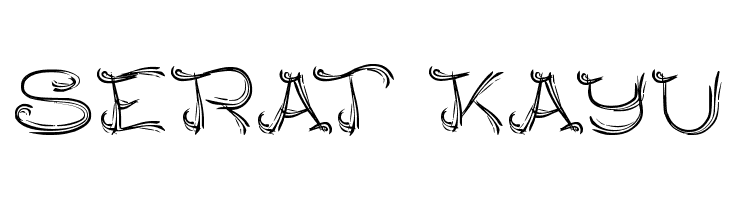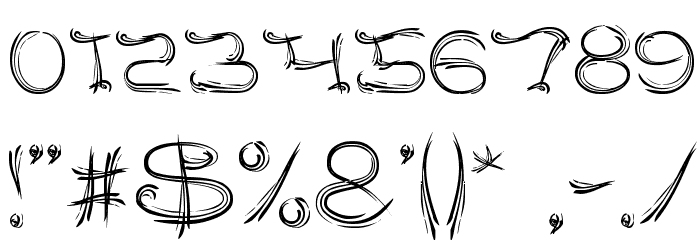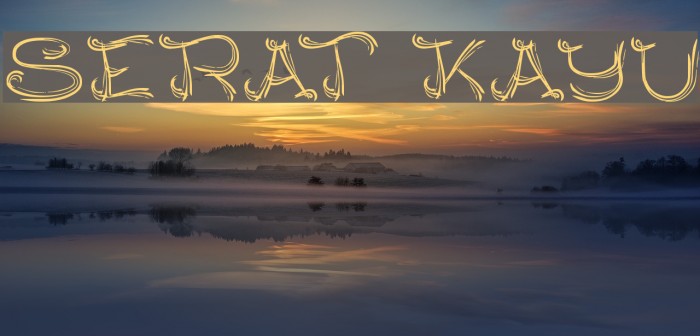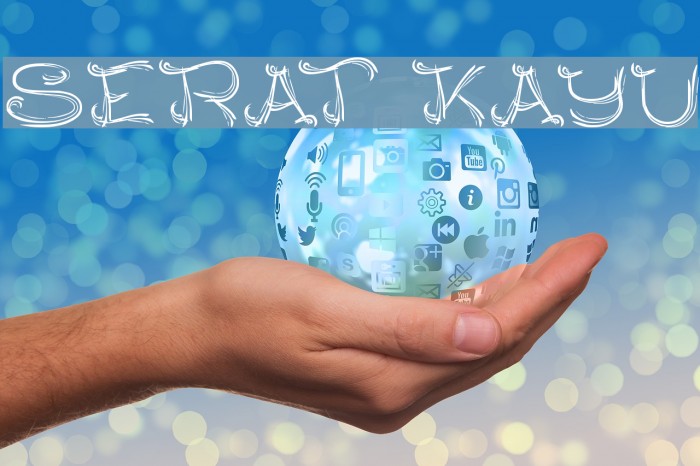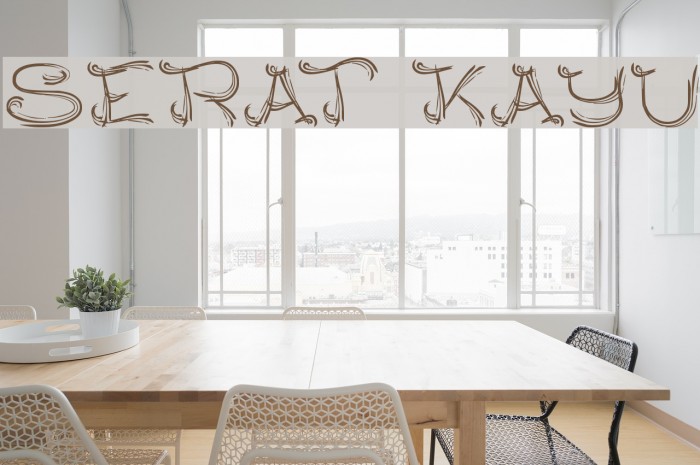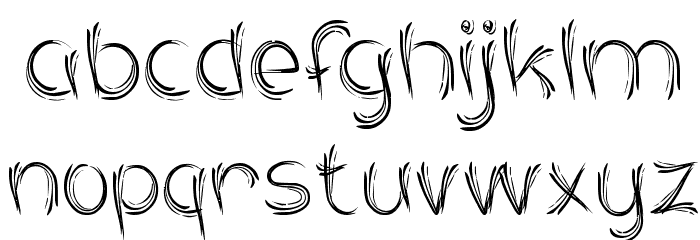
SERAT KAYU Font
SERAT KAYU Description
This font features a unique and artistic design with a hand-drawn appearance. Each character is adorned with intricate, swirling lines that give it a dynamic and lively feel. The strokes vary in thickness, creating a sense of movement and energy. The overall style is decorative, making it stand out with its creative flair. The uppercase and lowercase letters maintain a consistent style, while the numerals and special characters are equally expressive, adding to the font's cohesive look. This font is ideal for projects that require a bold and artistic touch.
An artistic, hand-drawn font with swirling, dynamic strokes from Decorative fonts.